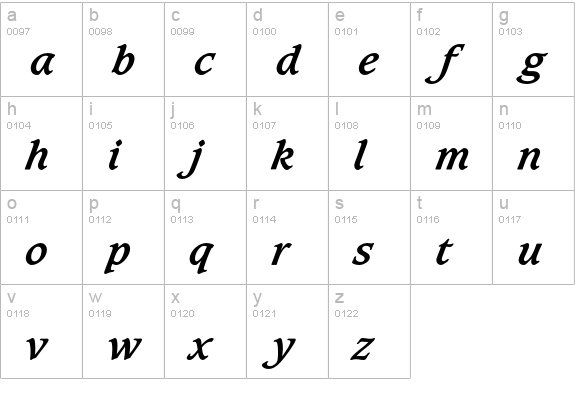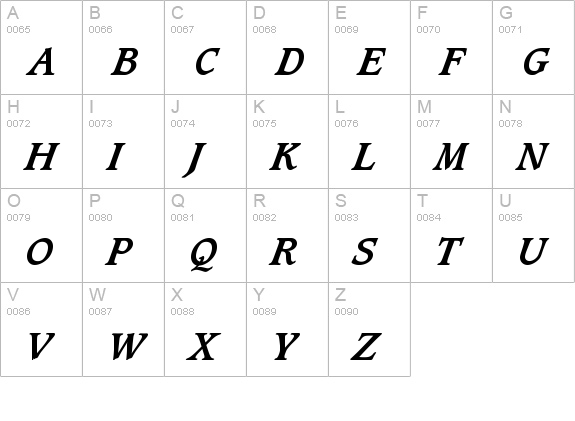
CaxtonEF-BoldItalic Font Details
CaxtonEF-BoldItalic font exudes elegance and sophistication with its bold yet graceful italic design. Its striking aesthetic makes it perfect for adding a touch of modernity to any project, whether it be for branding, editorial design, or creative layouts. The strong and slanted letterforms of CaxtonEF-BoldItalic command attention and convey a sense of confidence and style. What's even better is that CaxtonEF-BoldItalic font is available for free download at FontsMarket.com. This means that you can easily access this exquisite typeface and incorporate it into your designs without any cost. Don't miss out on the opportunity to enhance your projects with the timeless beauty of CaxtonEF-BoldItalic font, now just a click away for free at FontsMarket.com.